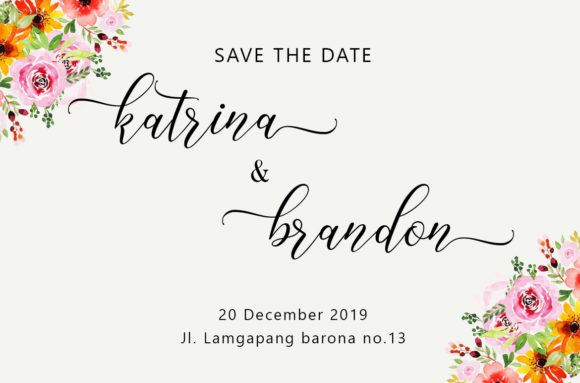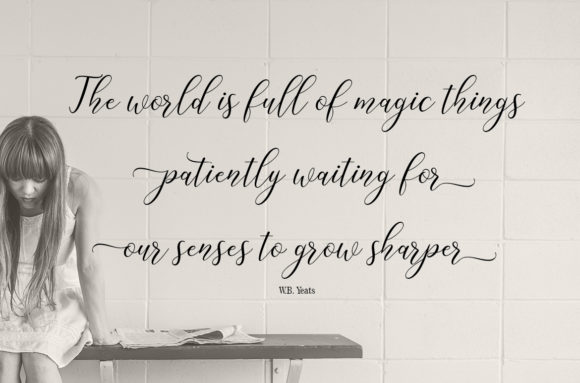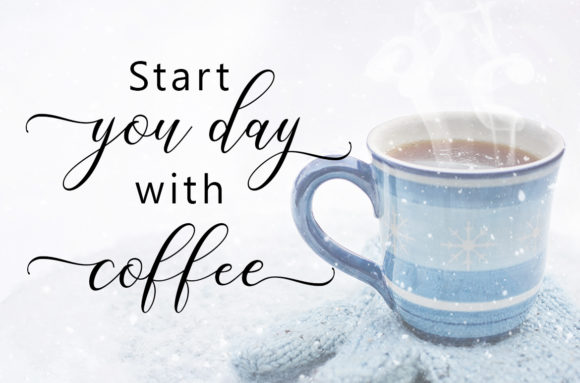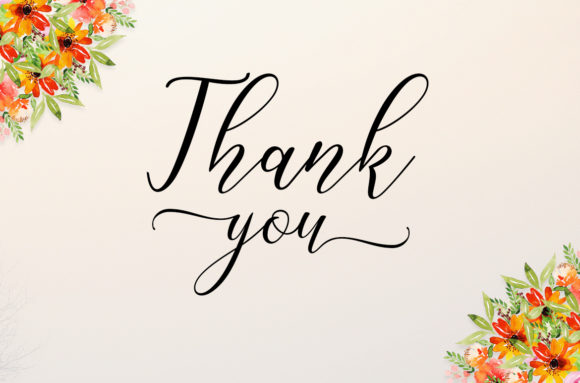
Introduction to Katlyne Script Font Font
Fonts play a crucial role in design, and the Katlyne Script Font font is a typeface that brings both character and versatility to any project. Whether you’re working on a branding project, a website, or a print design, the Katlyne Script Font font offers a unique style that can elevate your work.
| 📌 Font Name | Katlyne Script Font |
| 👤 Author | Amarlettering |
The Katlyne is a beautiful handwritten typeface.
It includes elegant swashes which will add an feminine, handwritten feel to your designs .
Key Features of Katlyne Script Font Font
Why Choose Katlyne Script Font Font?
The Katlyne Script Font font is more than just a typeface – it’s a design tool that helps you communicate your message with style and clarity. Its unique character set and versatile design make it suitable for a wide range of applications, from elegant invitations to bold headlines.
With its carefully crafted letterforms and balanced proportions, the Katlyne Script Font font ensures readability and visual appeal across all mediums.
What makes Katlyne Script Font font special?
The Katlyne Script Font font stands out with its unique design, exceptional readability, and versatility across various design applications.